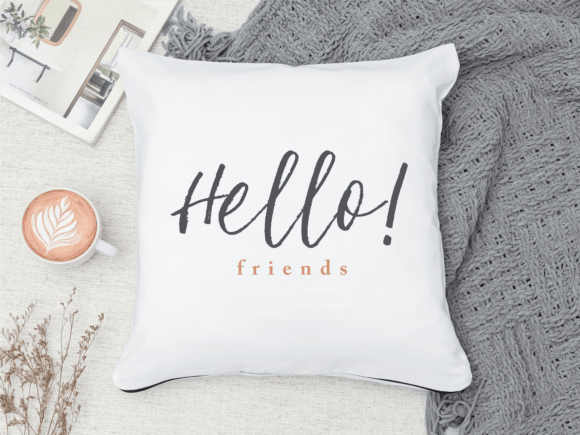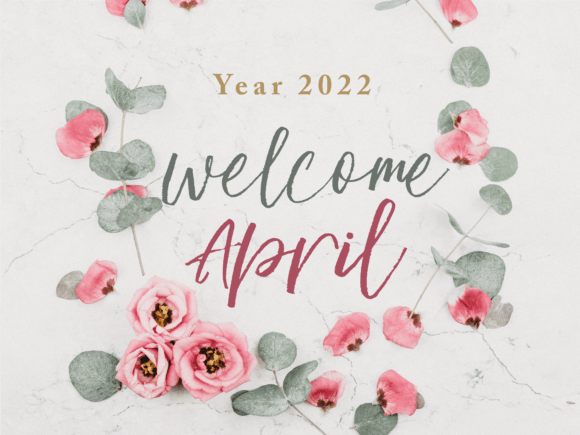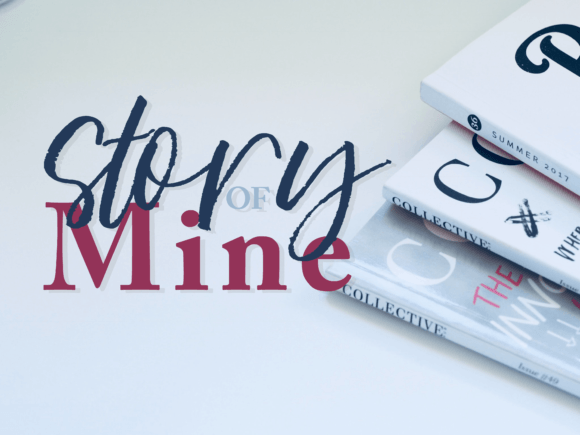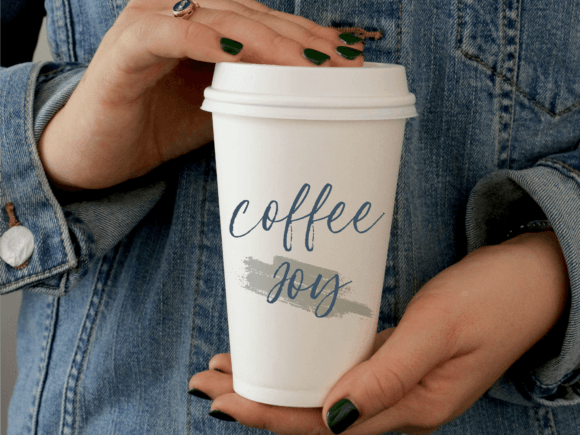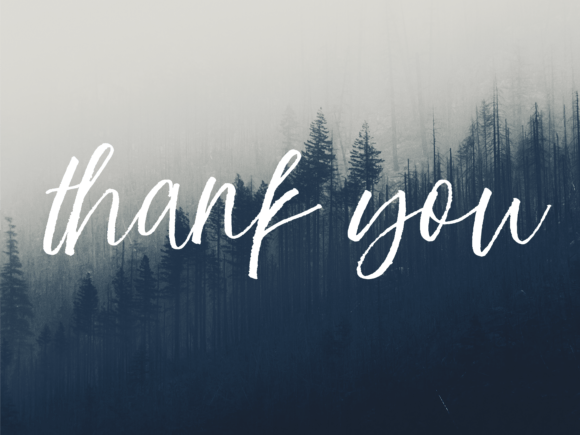
Ironsides Font
About Ironsides Font
Ironsides is a bold and expressive brush handwritten font that exudes energy and creativity. Its dynamic strokes and artistic flair make it a perfect choice for a wide range of design applications, allowing you to infuse your projects with a sense of spontaneity and uniqueness. Whether you’re creating wall displays, wedding invitations, social media post logos, advertisements, product packaging, product designs, labels, photography watermarks, invitations, stationery, or any project that demands impressive typography, Ironsides delivers a striking visual impact.
One of the standout features of Ironsides is its versatility. Its brush-inspired design adds a touch of authenticity and raw creativity to your text, making it suitable for both digital and print media. The font’s bold and expressive nature ensures that your message stands out, capturing the viewer’s attention and making a memorable impression.
Ironsides’ bold and dramatic appearance makes it particularly well-suited for projects that require a powerful visual statement. Its impactful typography enhances the overall design, creating a focal point that draws viewers in. Whether you’re designing large-scale wall displays, eye-catching advertisements, or attention-grabbing social media posts, Ironsides adds a sense of drama and excitement to your compositions.
Incorporating Ironsides into your projects not only adds an impressive typography but also showcases your creativity and boldness. Its brush handwritten style conveys a sense of artistic freedom and spontaneity, making it a popular choice among designers who seek to break away from traditional typography. By choosing Ironsides, you’re selecting a font that elevates your designs and leaves a lasting impression on your audience.
So, whether you’re designing impactful wall displays that command attention, creating visually stunning wedding invitations, crafting captivating social media post logos, or working on any other creative project, let Ironsides be your font of choice. Its bold and expressive brush handwritten style empowers you to make a statement, infusing your designs with energy and creativity. Embrace the artistic freedom of Ironsides and watch your projects come to life with a bold and impressive typography that leaves a lasting impact.